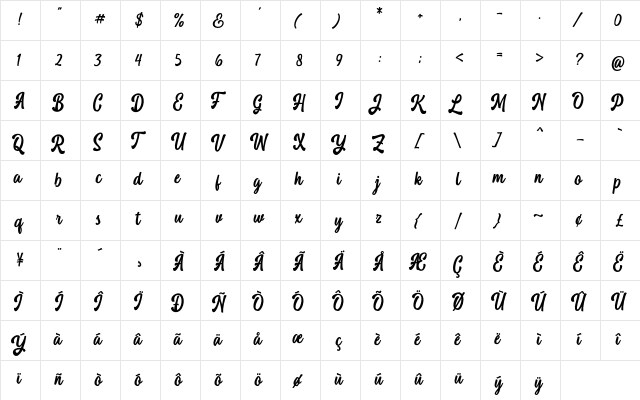
Kelsey Script Regular
Design Context for Kelsey Script Typeface
Kelsey Script flows with the natural rhythm of handwritten lettering, making it ideal for designs that call for warmth and personal expression.